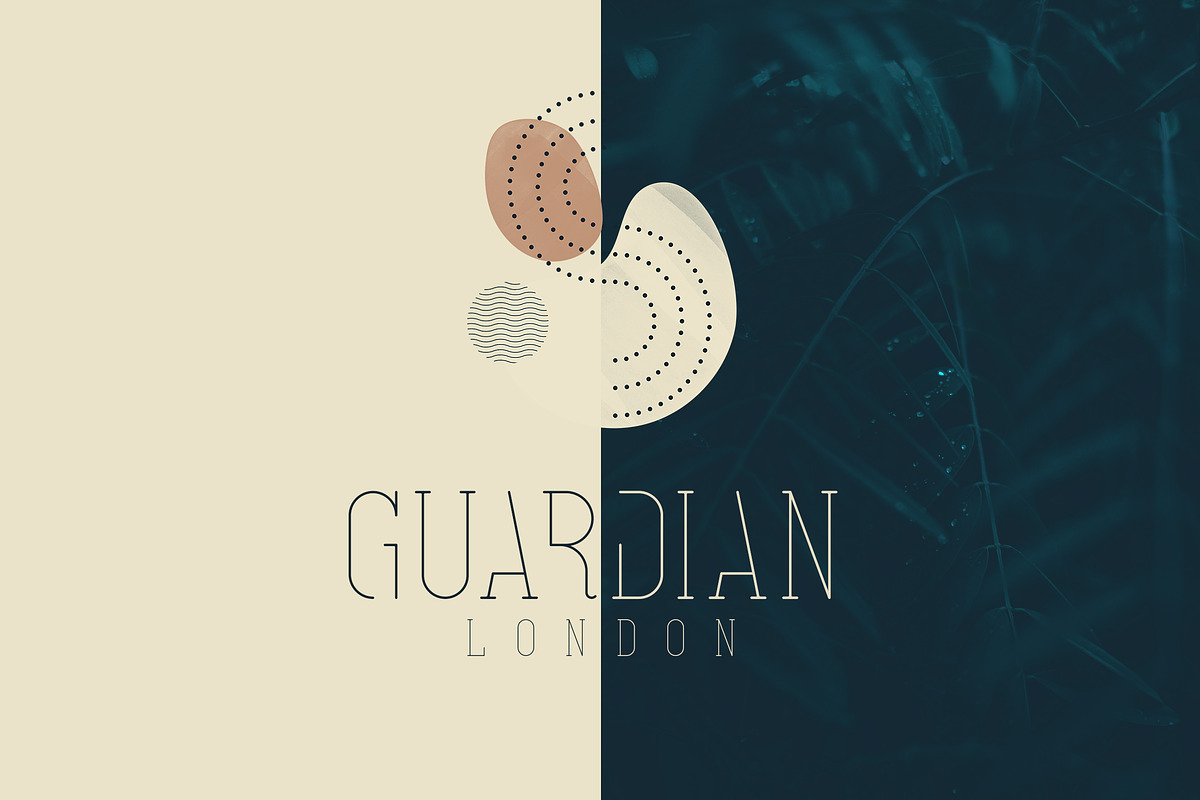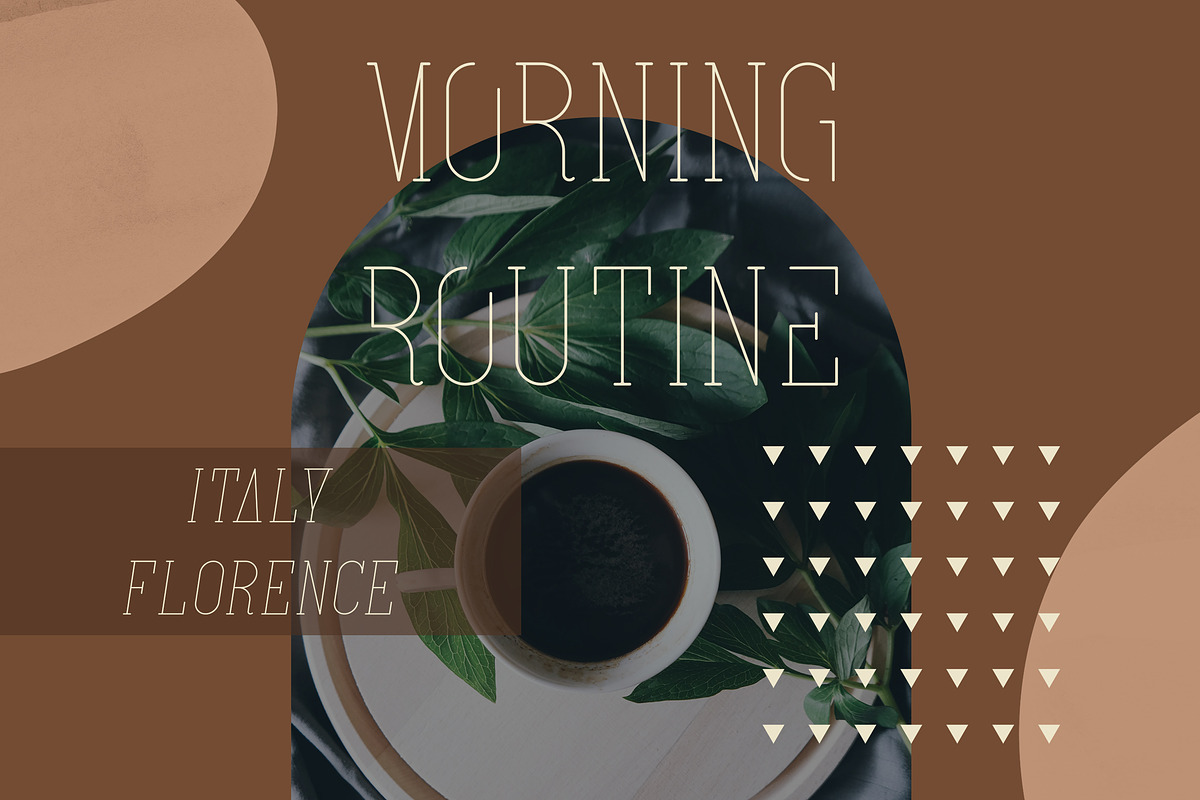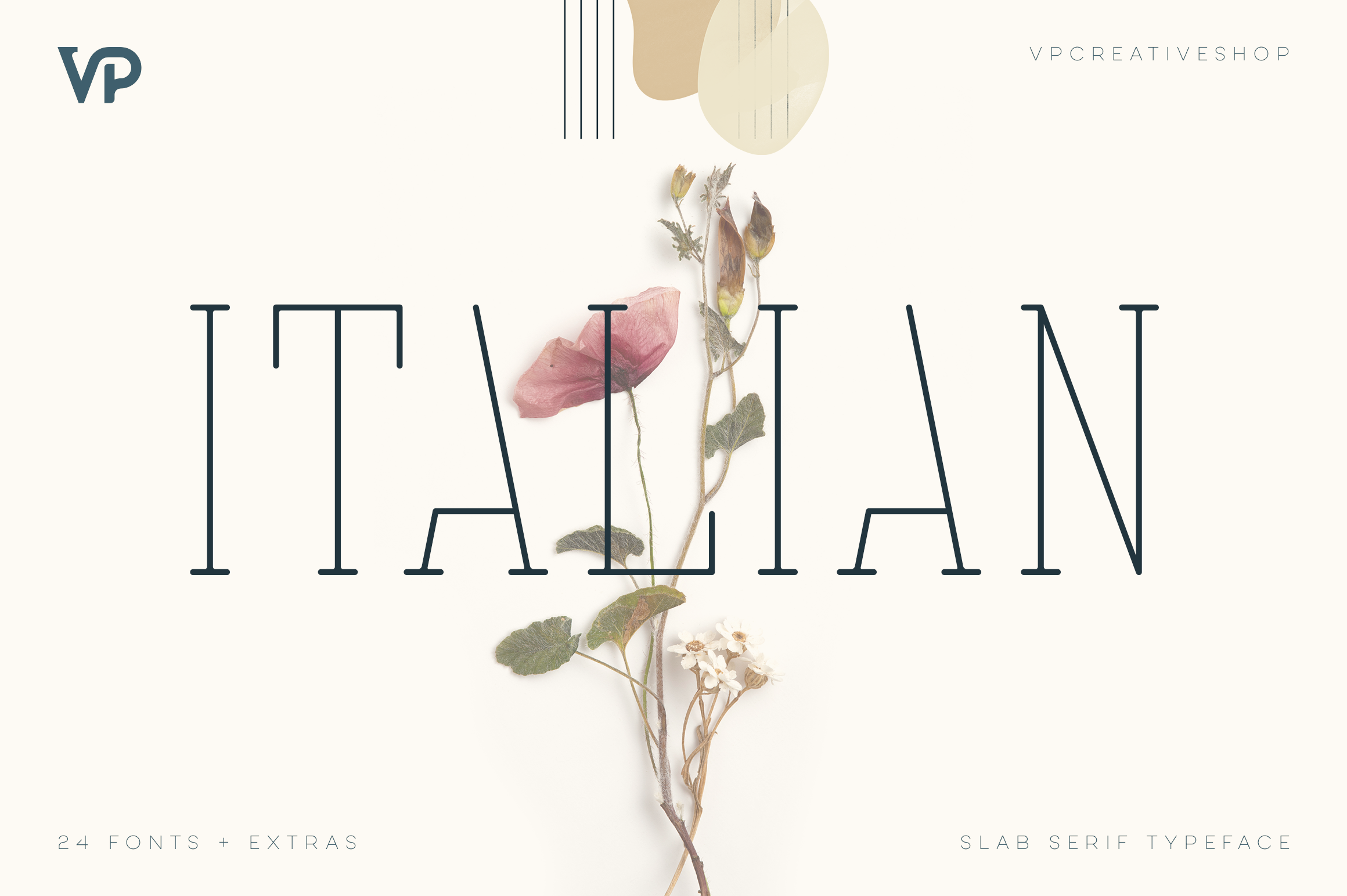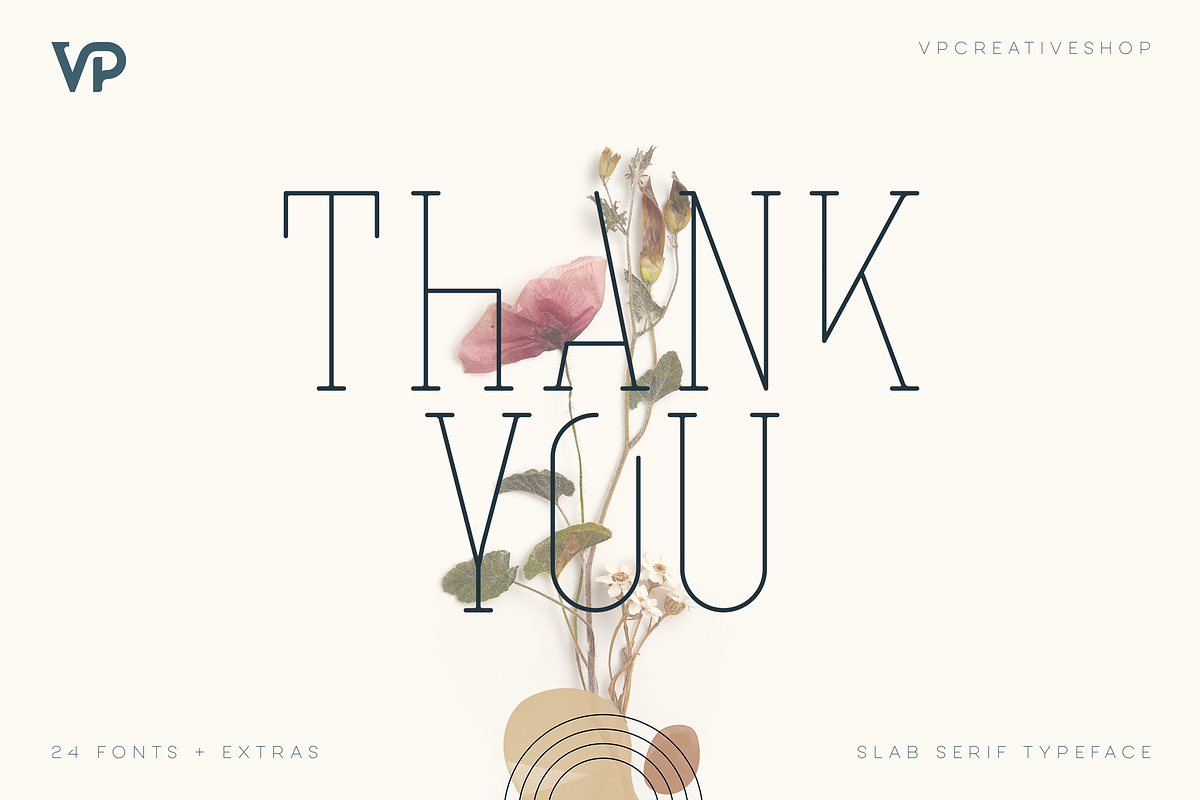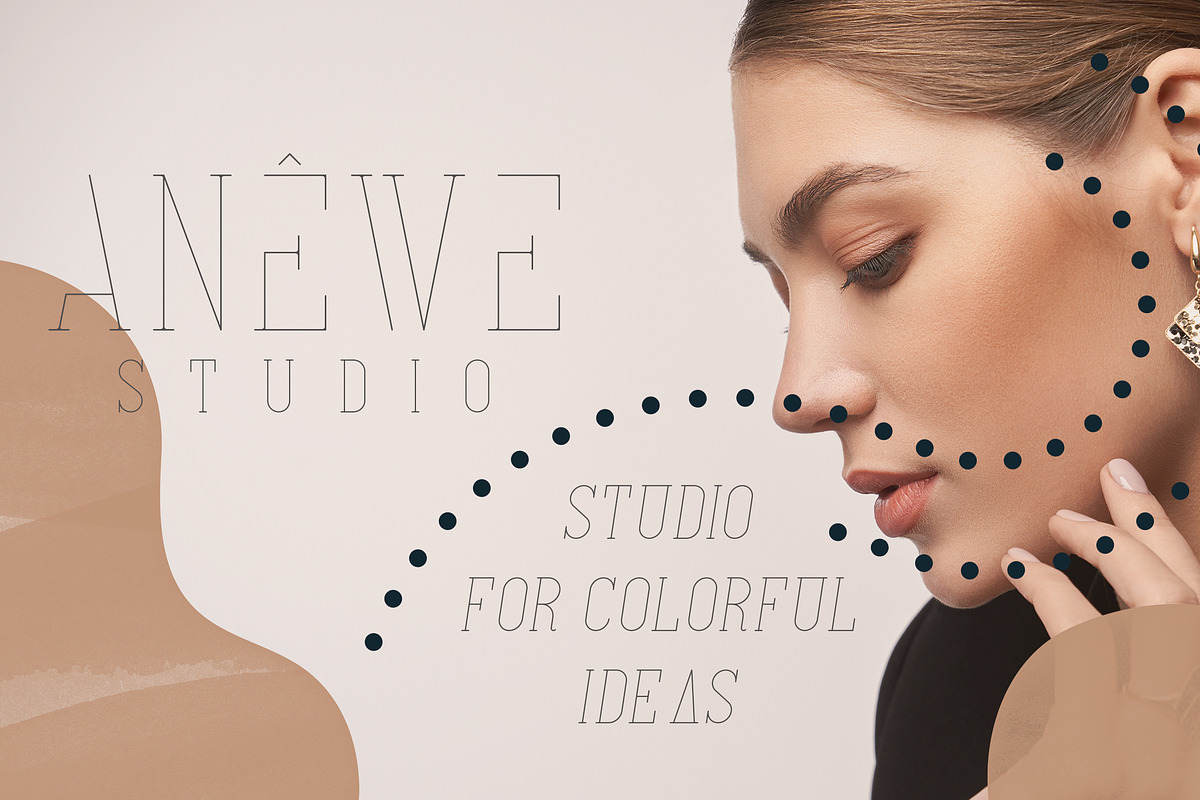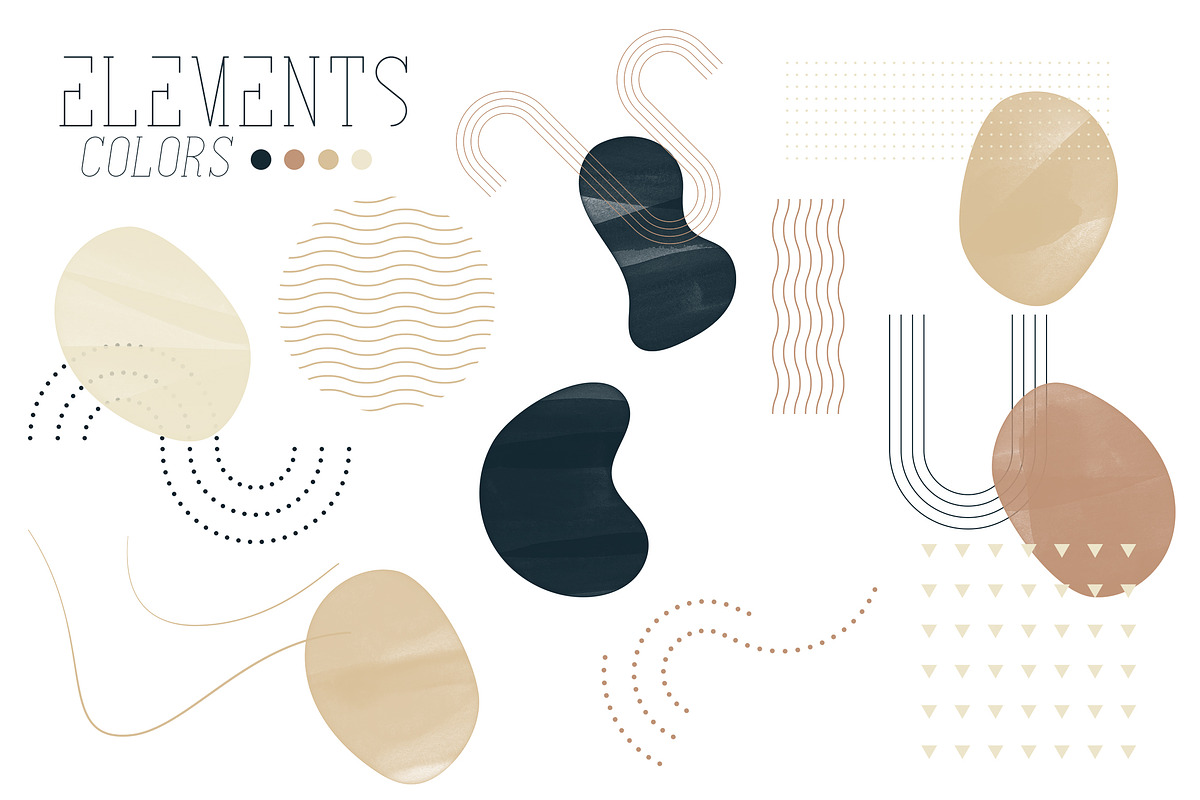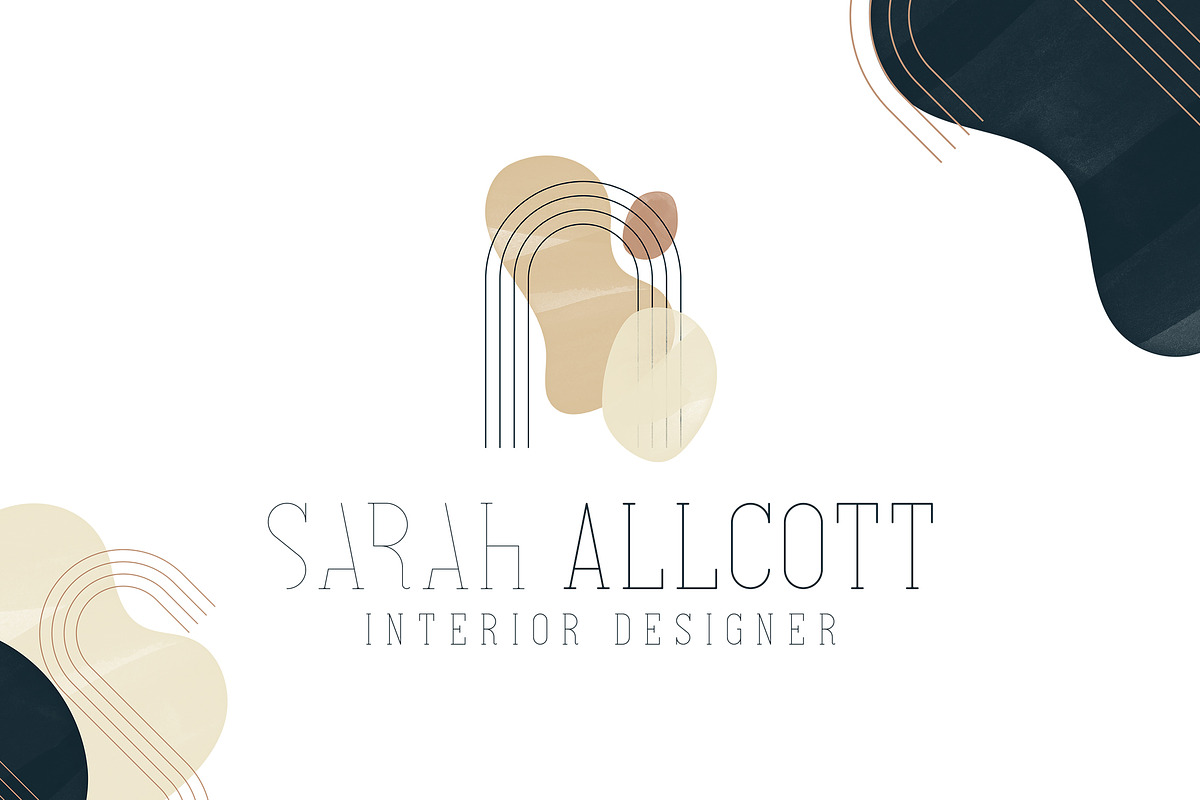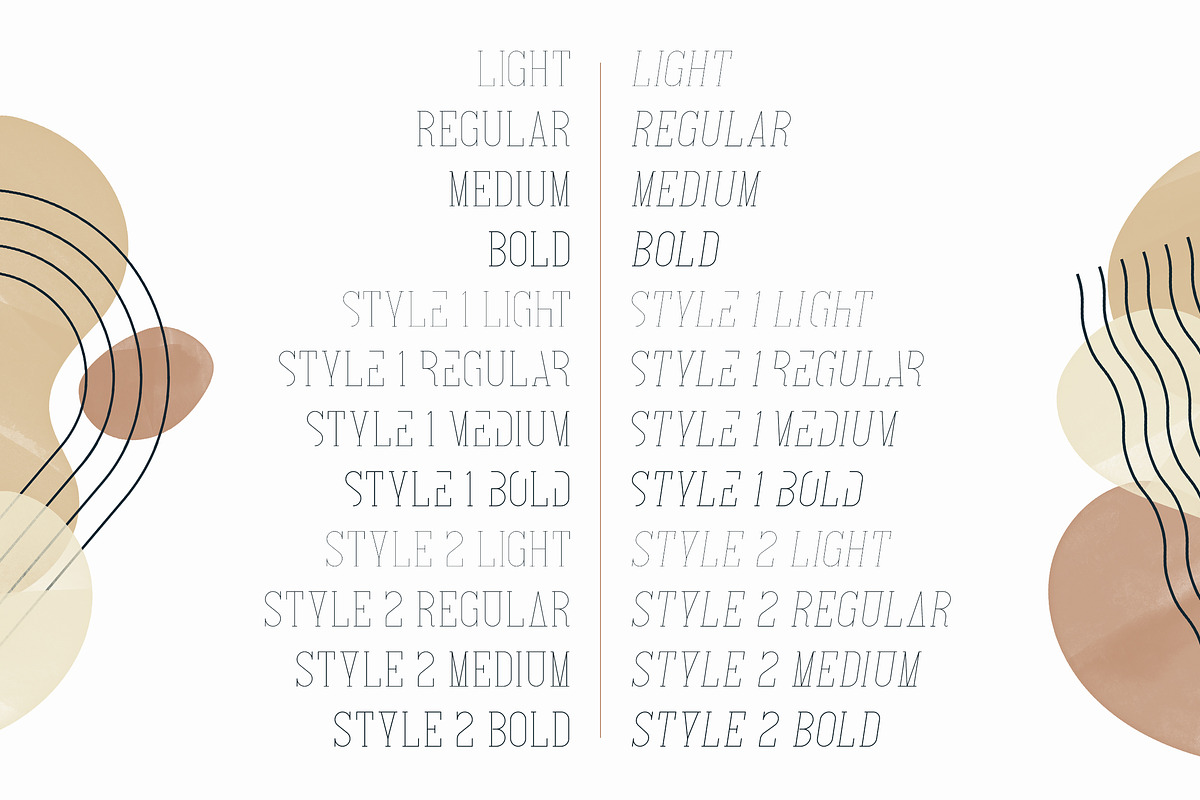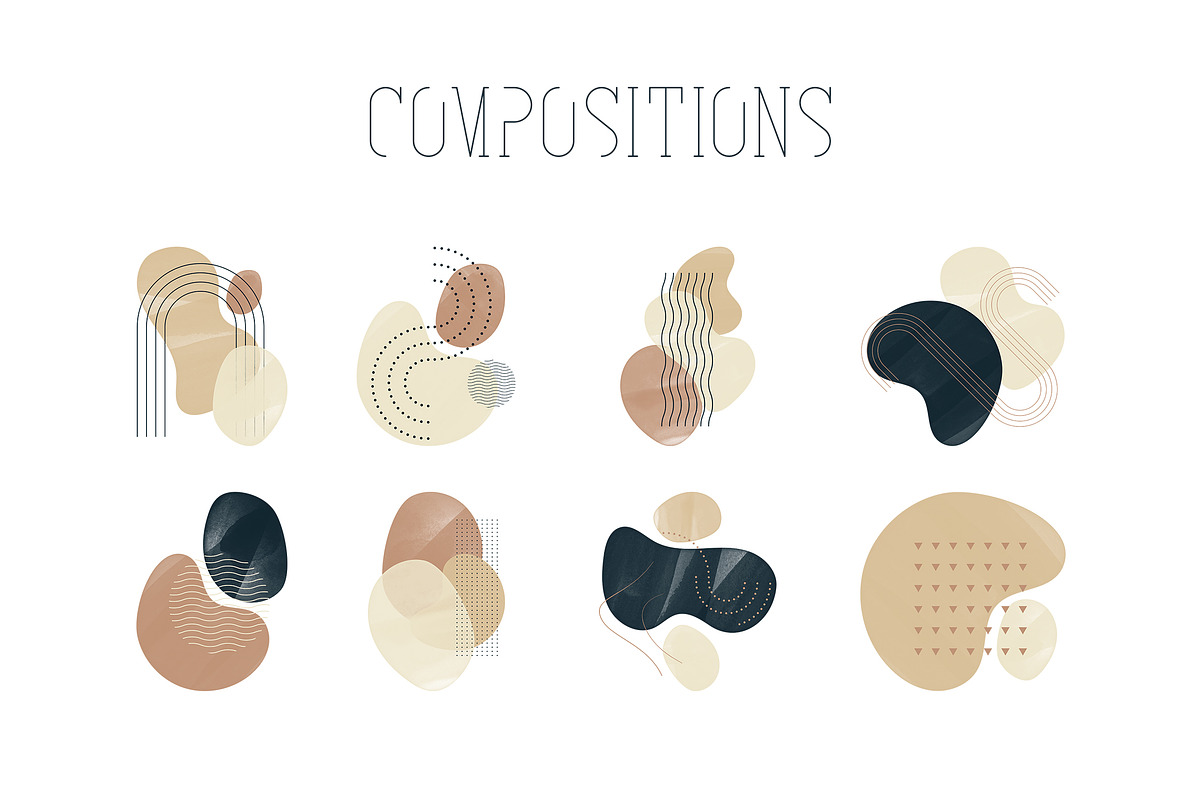
Introducing Italian Slab Serif Typeface - 24 fonts + graphics
Italian is long, clean typeface with 24 fonts to enchant your next project. Added and 8 compositions and 15 elements in 4 premade colors. Very versatile fonts that works great in large and small sizes.
Italian is perfect for branding projects, home-ware designs, product packaging, magazine headers - or simply as a stylish text overlay to any background image.
- Uppercase numeral, punctuation & Symbol
- Light
- Medium
- Bold
- 3 styles
- Italics